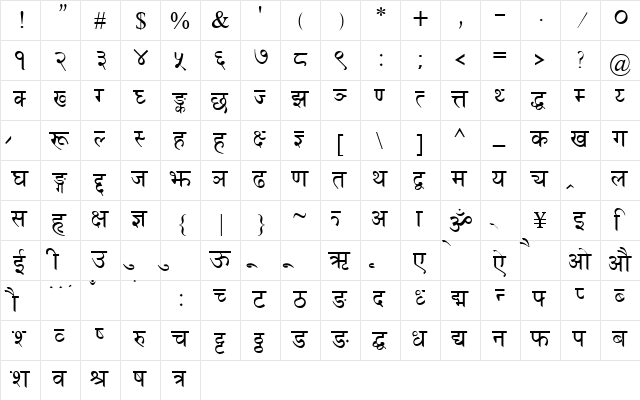
Fontasy Himali Regular
Design Context for Fontasy Himali Typeface
Fontasy Himali takes a measured approach to typography — its balanced proportions and neutral character make it a reliable workhorse for both digital and print work.